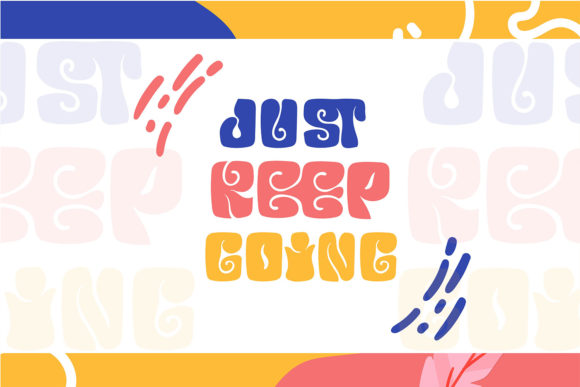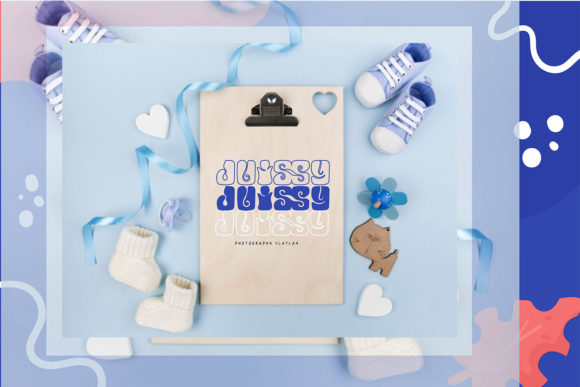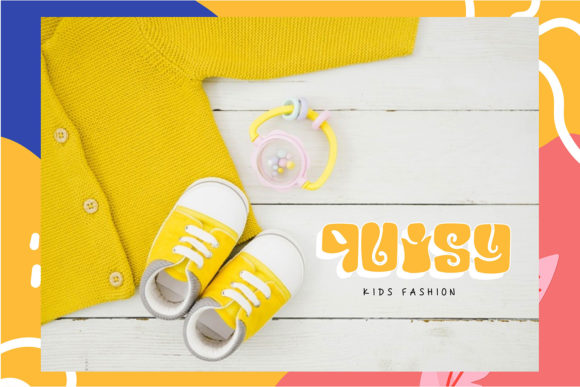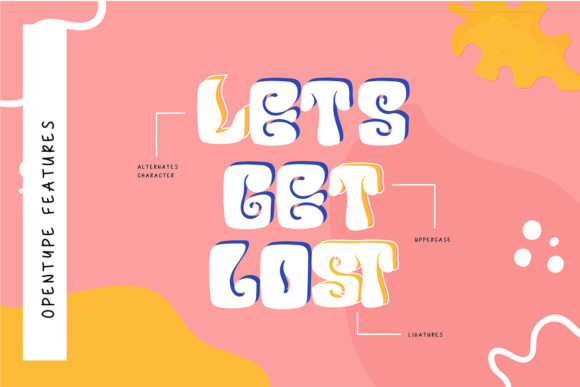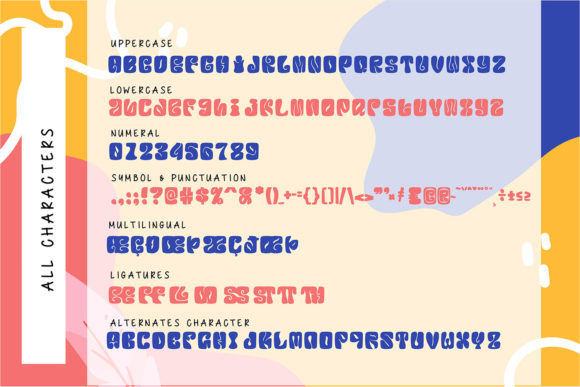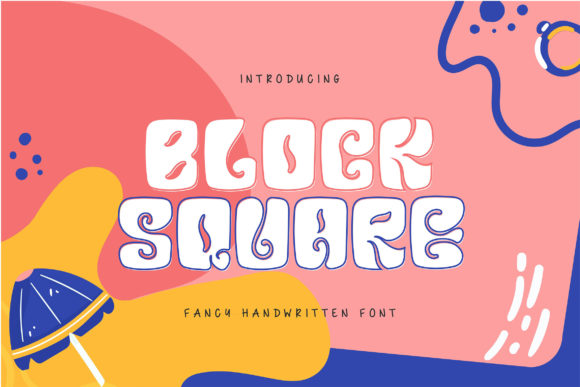
Introducing Block Square Font: Elevate Your Designs with a Stylish and Whimsical Display Font
Are you tired of using the same old fonts in your designs? Do you want to add a touch of personality and whimsy to your creations? Look no further than Block Square Font, a stylish and versatile display font that’s perfect for designers and crafters alike. In this article, we’ll take a closer look at what makes Block Square Font so special and how you can use it to take your designs to the next level.
What is Block Square Font?
Block Square Font is a modern display font that’s designed to add a touch of playfulness and sophistication to your designs. With its chunky letters and stylish aesthetic, this font is perfect for creating eye-catching headlines, titles, and graphics. Whether you’re working on a branding project, a craft tutorial, or a social media post, Block Square Font is sure to make your designs stand out.
PUA Encoding: What Does it Mean?
One of the best things about Block Square Font is that it’s PUA (Private Use Area) encoded. But what does that mean? In simple terms, PUA encoding allows you to access all of the glyphs and swashes in the font with ease. This means you can create complex and beautiful designs without having to worry about complicated font editing software. With Block Square Font, you can simply select the glyphs and swashes you want to use and get creative!
Features of Block Square Font
So, what makes Block Square Font so special? Here are just a few of its key features:
- Stylish and whimsical design: Block Square Font has a unique and playful aesthetic that’s perfect for creating eye-catching designs.
- PUA encoded: With PUA encoding, you can access all of the glyphs and swashes in the font with ease.
- Chunky letters: The chunky letters in Block Square Font make it perfect for creating bold and eye-catching headlines and titles.
- Versatile: Block Square Font can be used for a wide range of design projects, from branding and advertising to crafting and social media.
How to Use Block Square Font in Your Designs
So, how can you use Block Square Font in your designs? Here are a few ideas to get you started:
- Create eye-catching headlines: Use Block Square Font to create bold and eye-catching headlines that grab attention.
- Add a touch of whimsy to your branding: Block Square Font is perfect for adding a touch of personality to your branding, whether you’re creating a logo, business card, or website.
- Make your crafts stand out: If you’re a crafter, Block Square Font is a great way to add a professional touch to your projects, from papercrafting to sewing.
- Elevate your social media graphics: Use Block Square Font to create eye-catching social media graphics that stand out in crowded feeds.
Tips for Getting the Most Out of Block Square Font
Here are a few tips for getting the most out of Block Square Font:
- Experiment with different colors: Block Square Font looks great in a wide range of colors, so don’t be afraid to experiment and find the perfect hue for your design.
- Mix and match glyphs and swashes: With PUA encoding, you can easily mix and match glyphs and swashes to create unique and complex designs.
- Use it with other fonts: Block Square Font pairs well with a wide range of other fonts, so don’t be afraid to experiment with different combinations.